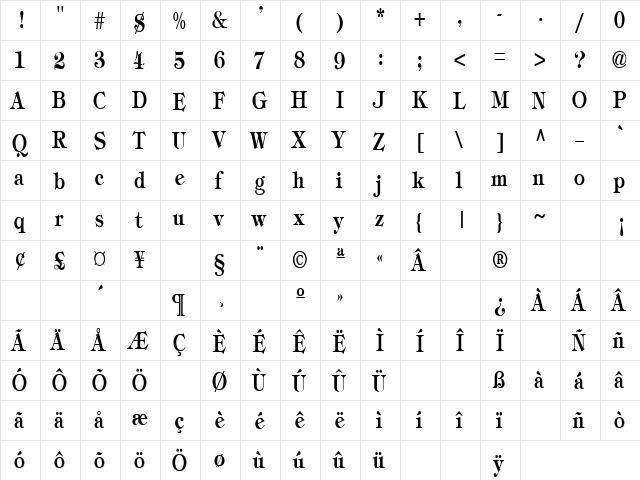
Thick N Thin 11 Regular
Design Context for Thick N Thin 11 Typeface
Thick N Thin 11 is a composed and adaptable typeface that performs quietly and consistently across a wide range of design contexts. Its slender proportions lend an understated elegance to any composition.